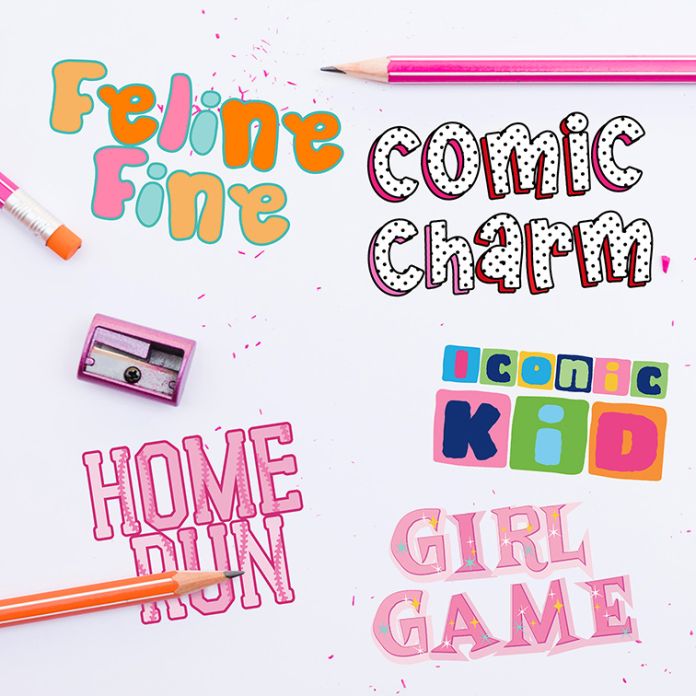
This full-color font bundle features five font full-color alphabets with an emphasis on girly fun! There is an alt case with an additional color of each letter. These fonts works best for titles, displays, posters and more. Please note color fonts will show as black in non compatible programs. These font types are compatible with Silhouette Studio.